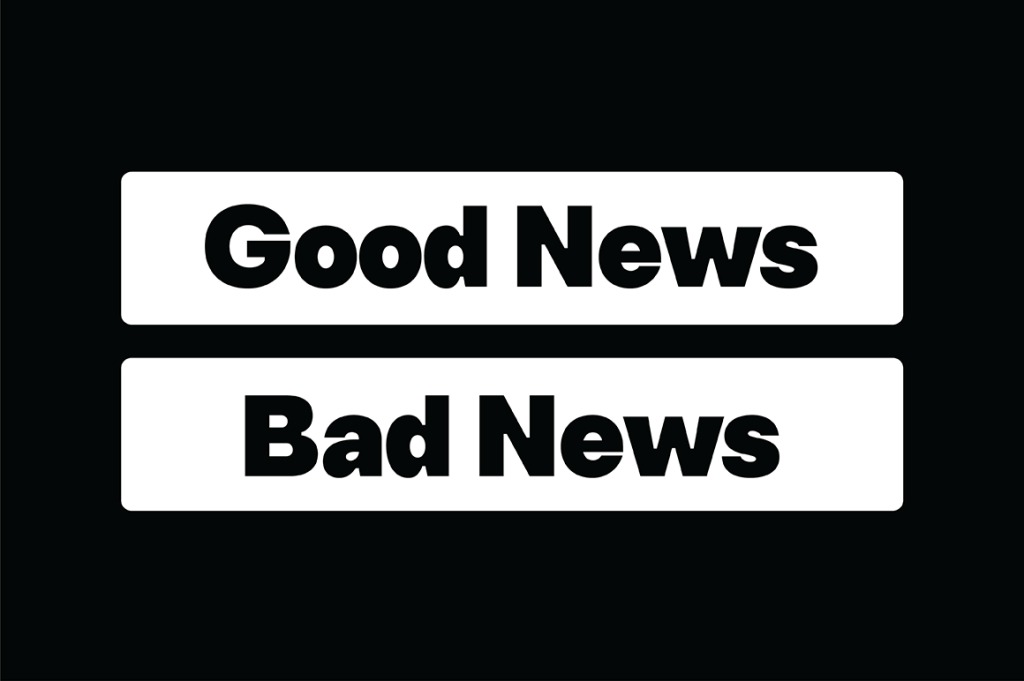
Sherika Font
Sherika Sans Serif Font
This is a versatile font that may be used for a variety of purposes. The fonts’ sleek and appealing appearance is due to their bold and strong letters. Fonts that are robust, bold, and clear, making your work look true and attractive. No matter the topic, this font will be an incredible asset to your fonts’ library, as it has the potential to elevate any creation.